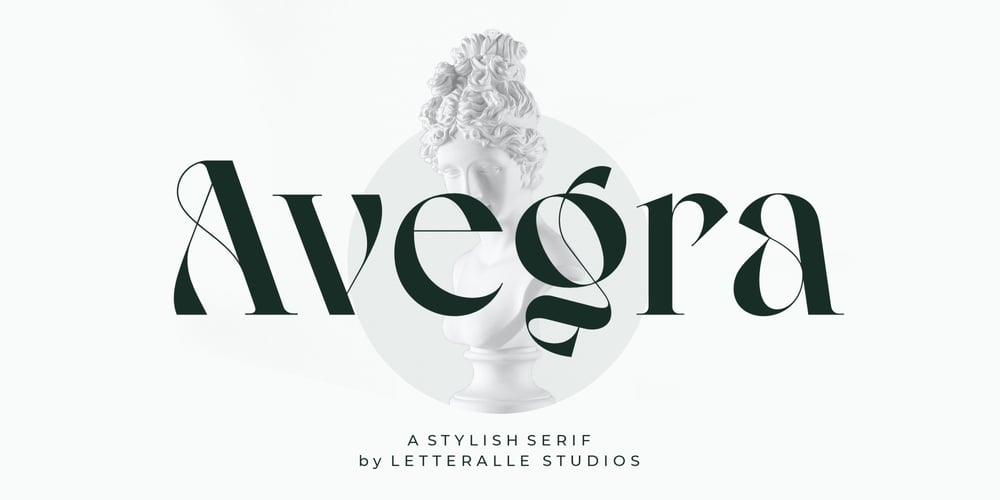
Avegra
Avegra font
Avegra Font Family was designed by Annas Alam Yahya and published by Letteralle. Avegra contains 1 styles and family package options. Avegra is stylish modern serif font. Contains uppercase & lowercase characters, all punctuation & numerals.Diaspora is absolutely perfect for editorial projects, Logo design, Wedding, Clothing Branding, product packaging, magazine headers, or simply as a stylish text overlay to any background image.